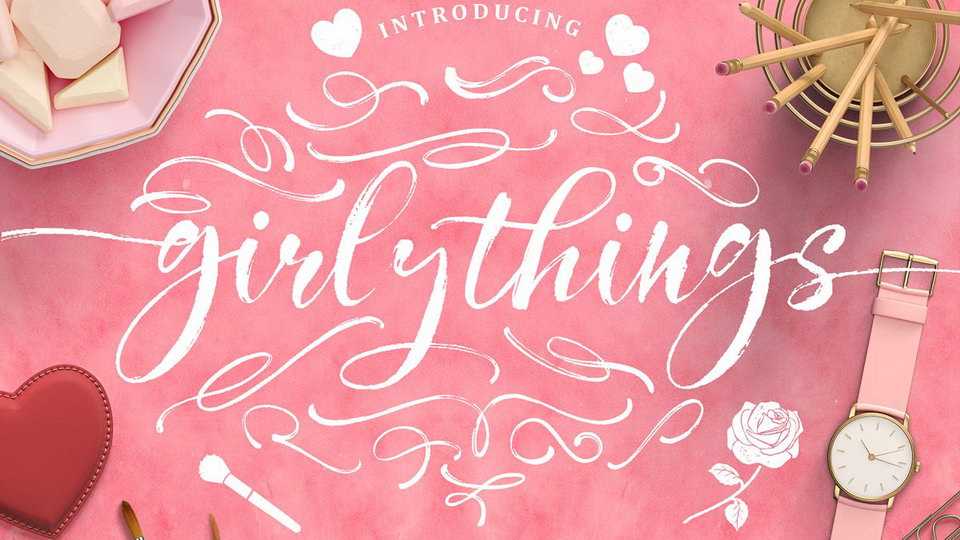
Download Girly Things fonts, an amazing hand drawn brush script with curly swashes. It has dry ink texture, so would be perfect if you looking for something artsy and hand made.